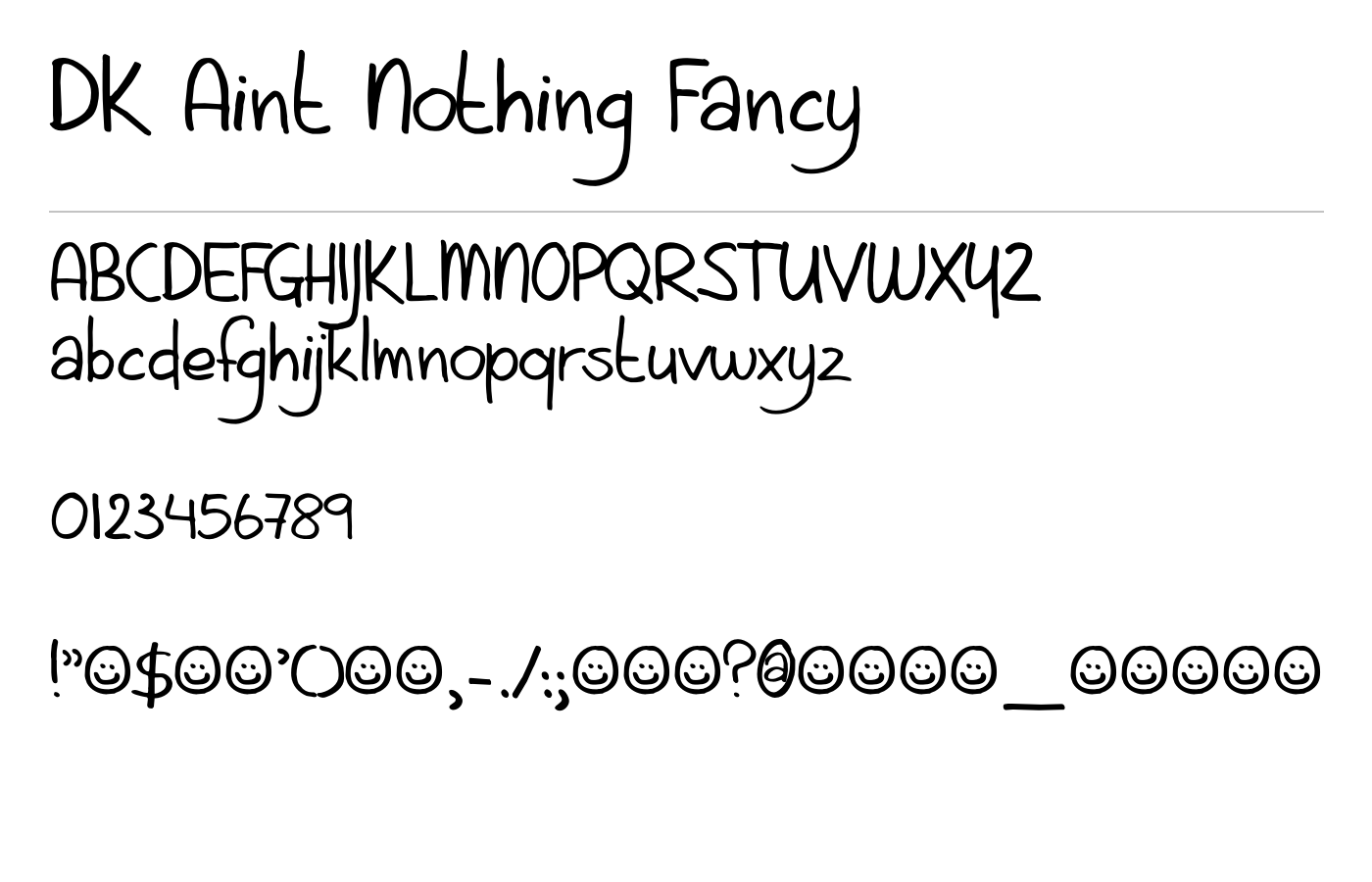
DK Aint Nothing Fancy is a playful and casual handwritten sans serif font that features a light weight with a slightly condensed width and moderate x-height, giving it a friendly and approachable feel. Its irregular, hand-drawn letterforms with simple strokes and quirky details make it perfect for informal designs, such as children’s projects, greeting cards, or social media graphics. This font works best in creative, fun contexts where a personal and relaxed tone is desired.
DK Aint Nothing Fancy Font
About DK Aint Nothing Fancy Font
| Font family | DK Aint Nothing Fancy Font |